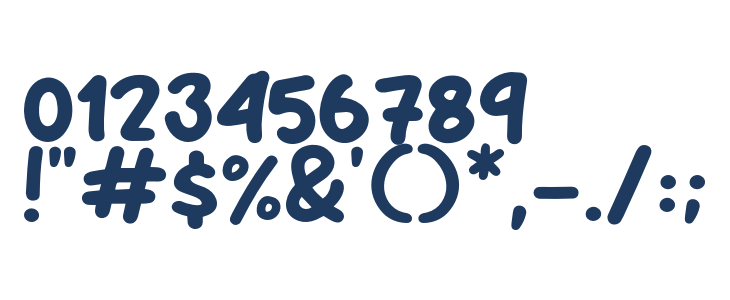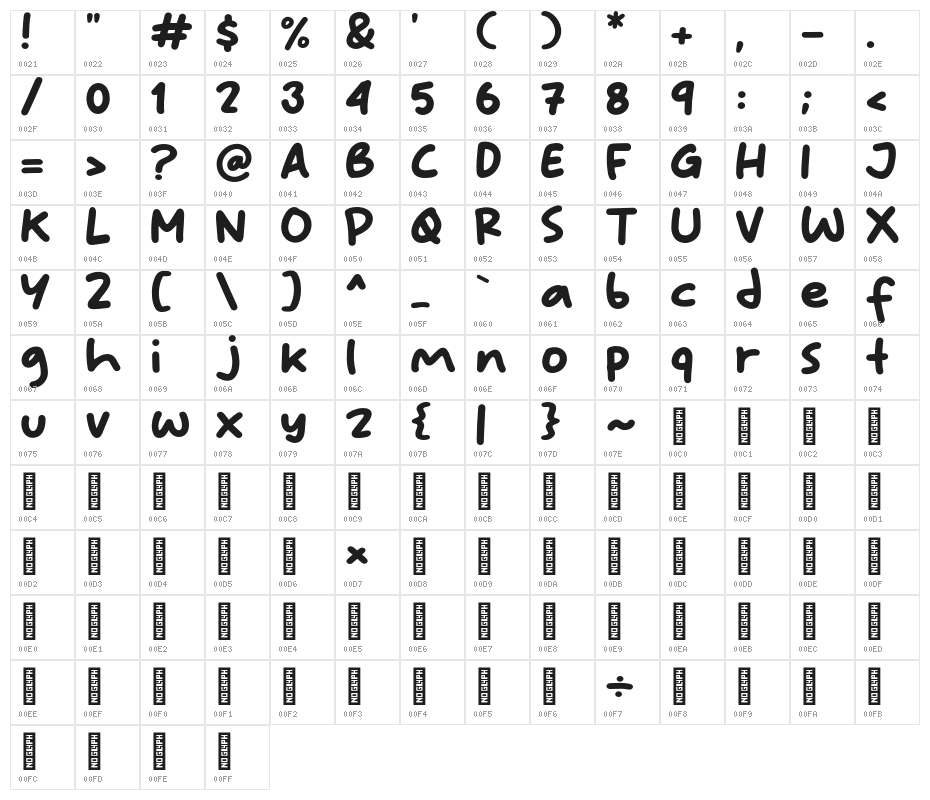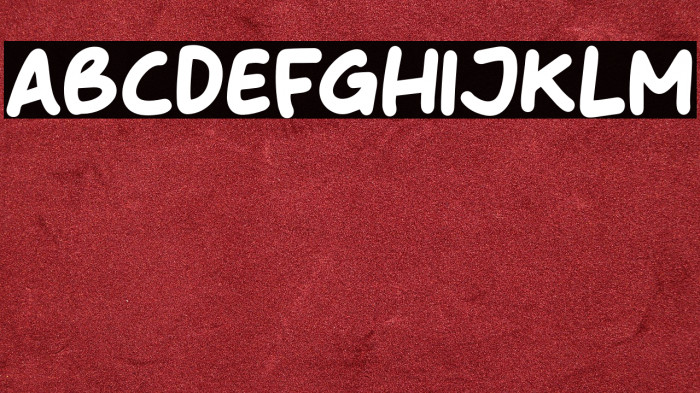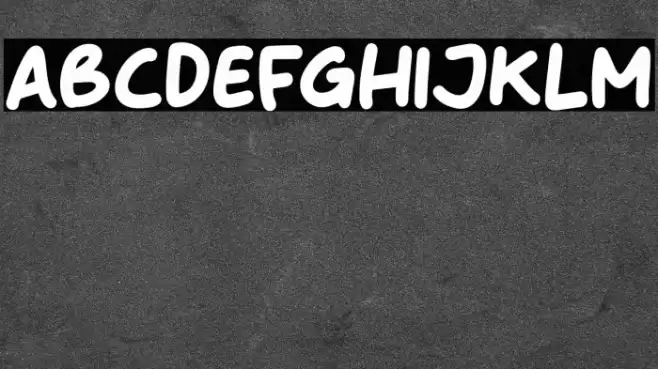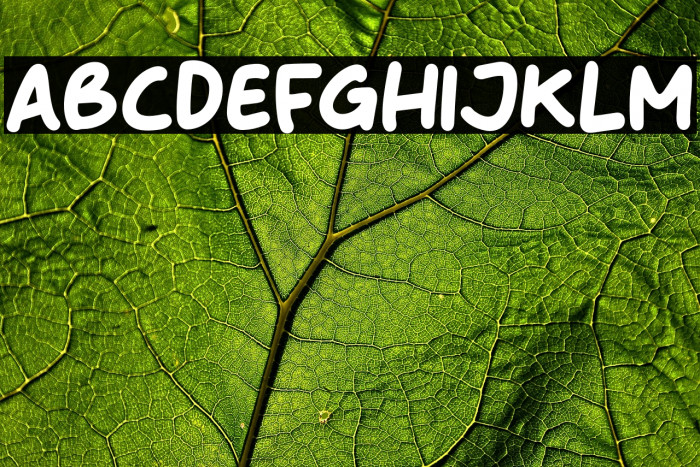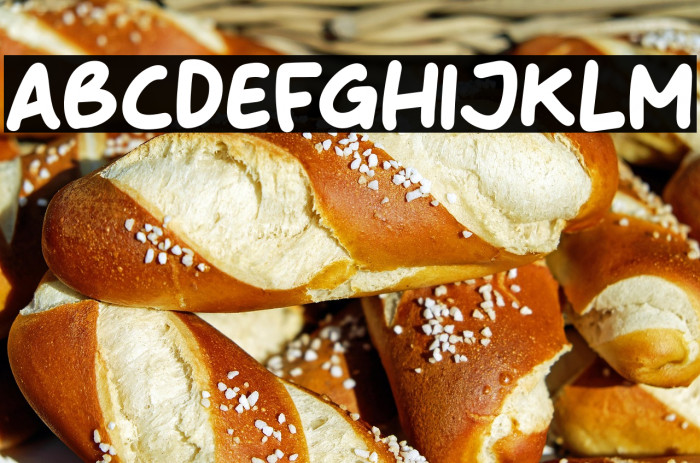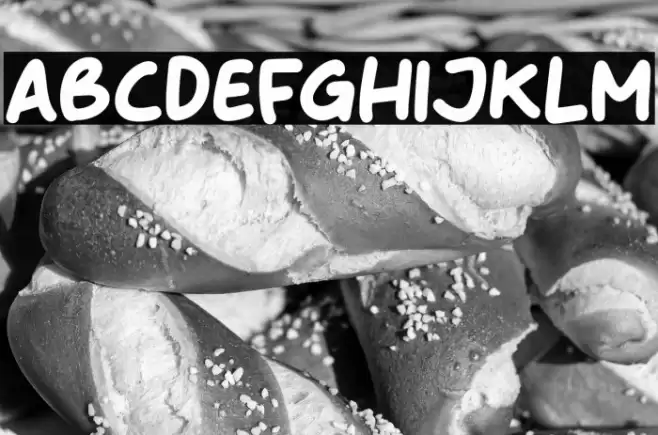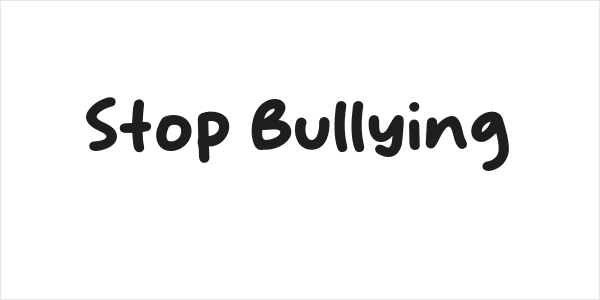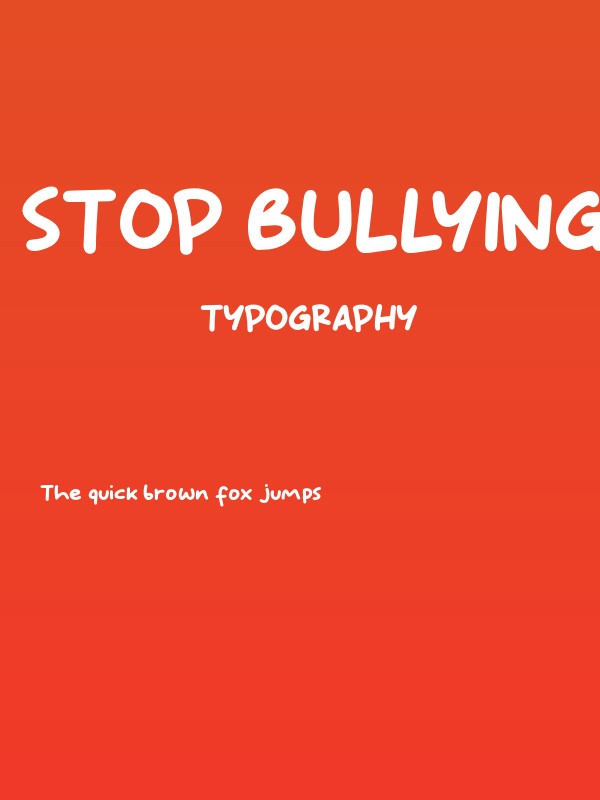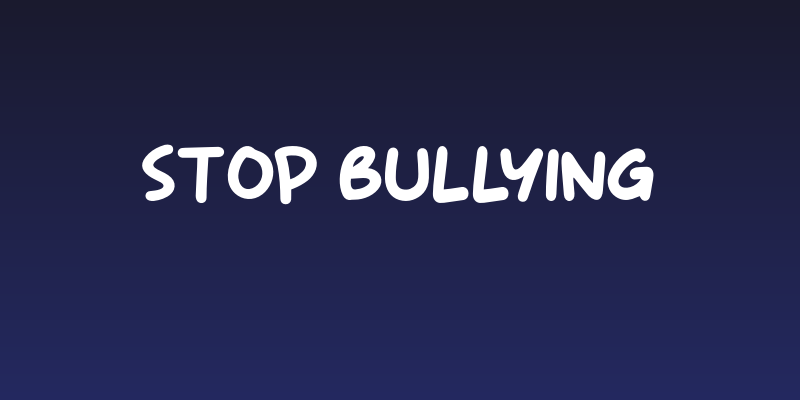
Stop Bullying Font
Stop Bullying Description
This playful and bold font features rounded, thick strokes that give it a friendly and approachable appearance. The characters are slightly irregular, adding a hand-drawn feel that enhances its casual and informal style. The uppercase and lowercase letters are well-balanced, with consistent stroke widths that maintain readability. Numbers and special characters are designed with the same playful aesthetic, making them suitable for a variety of creative applications. The font's overall look is dynamic and energetic, perfect for projects that require a touch of whimsy and personality.
Overall StylePlayful
Use CaseHeadlines, Logos, Informal Text
Proposed ProjectsIdeal for children's books, playful branding, casual invitations, and educational materials.